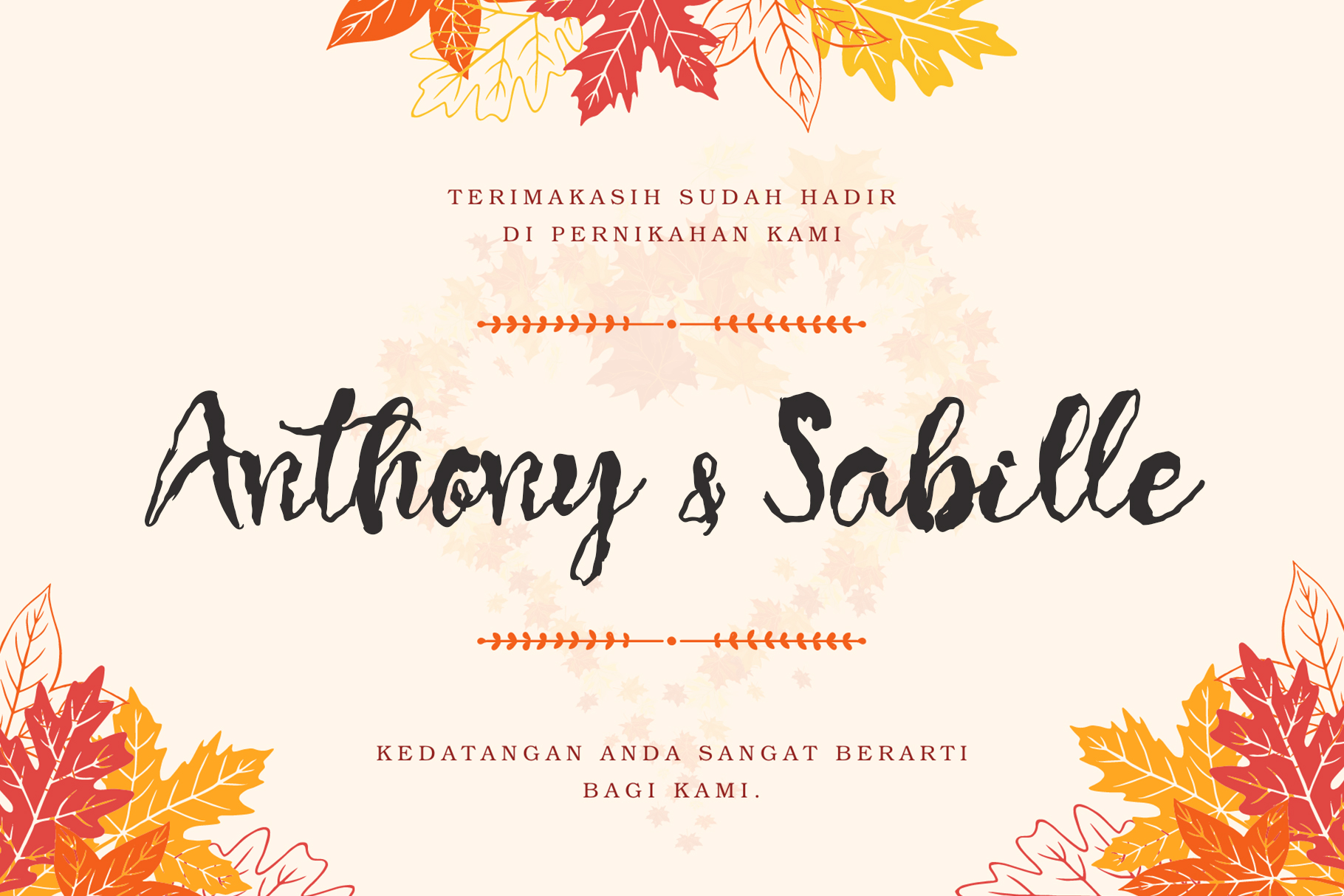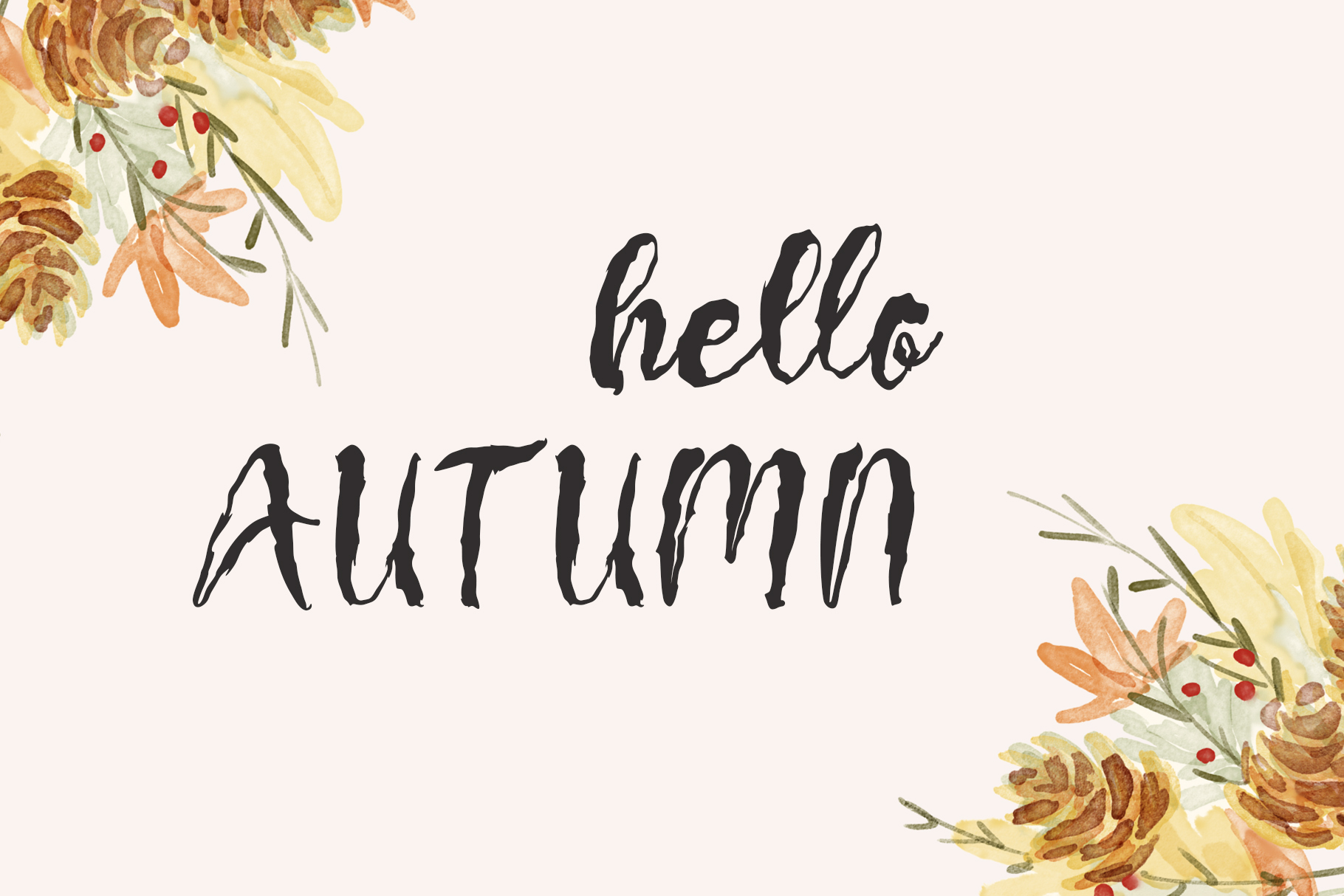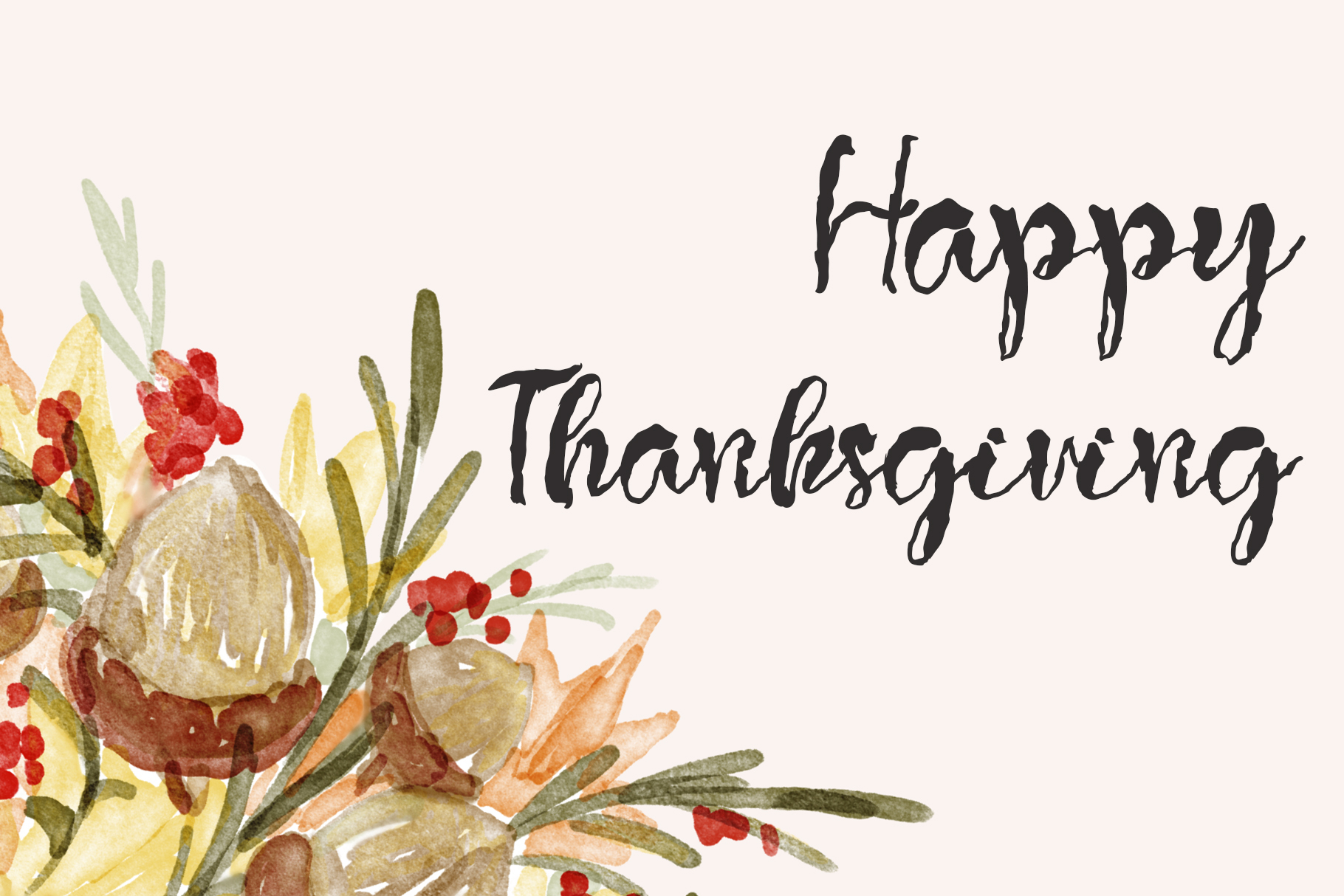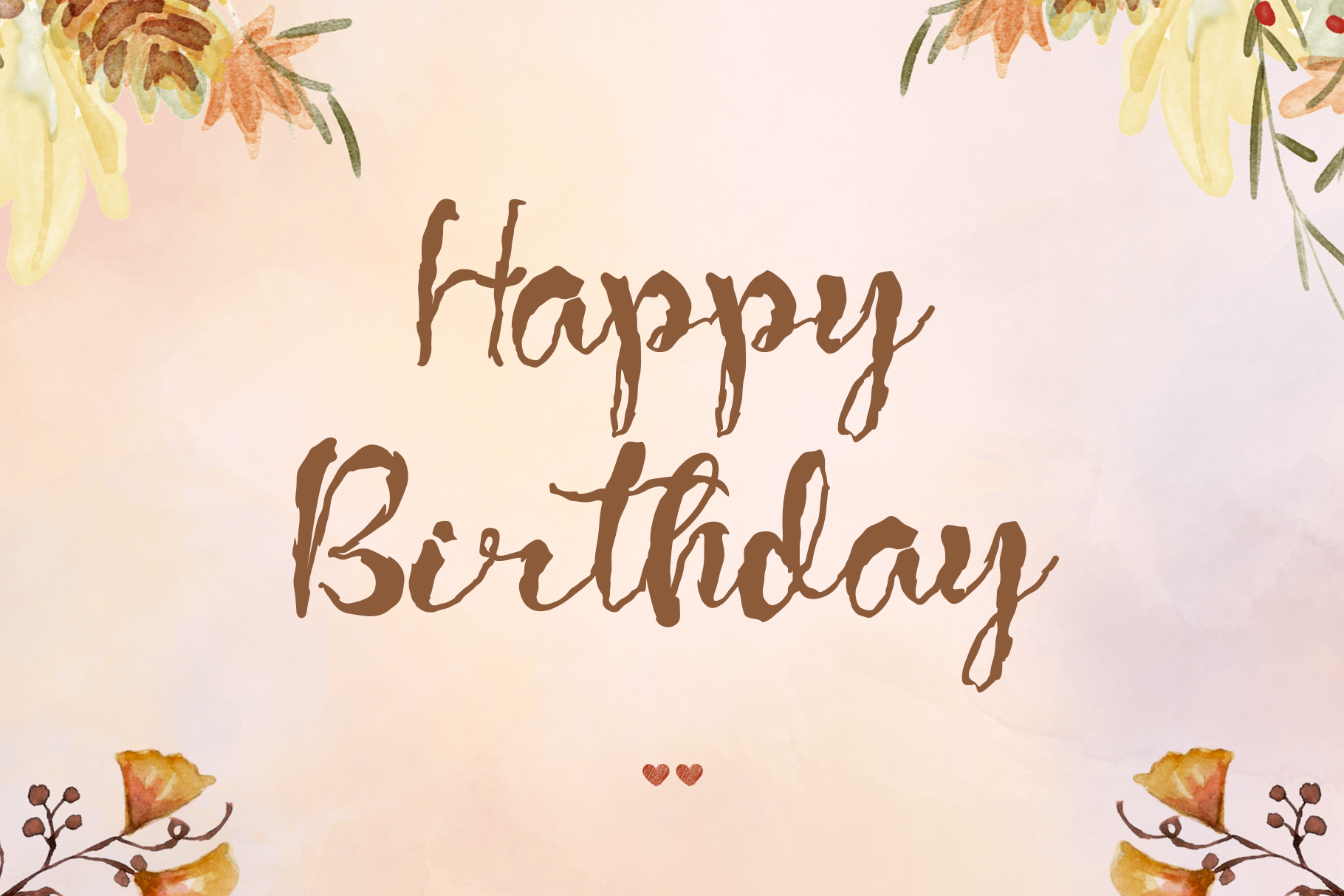
Remuk Font
Remuk Script Font
This is a cool and quirky handwritten font. With a rough look and a whimsical style, this font is perfect for adding a playful touch to your designs.